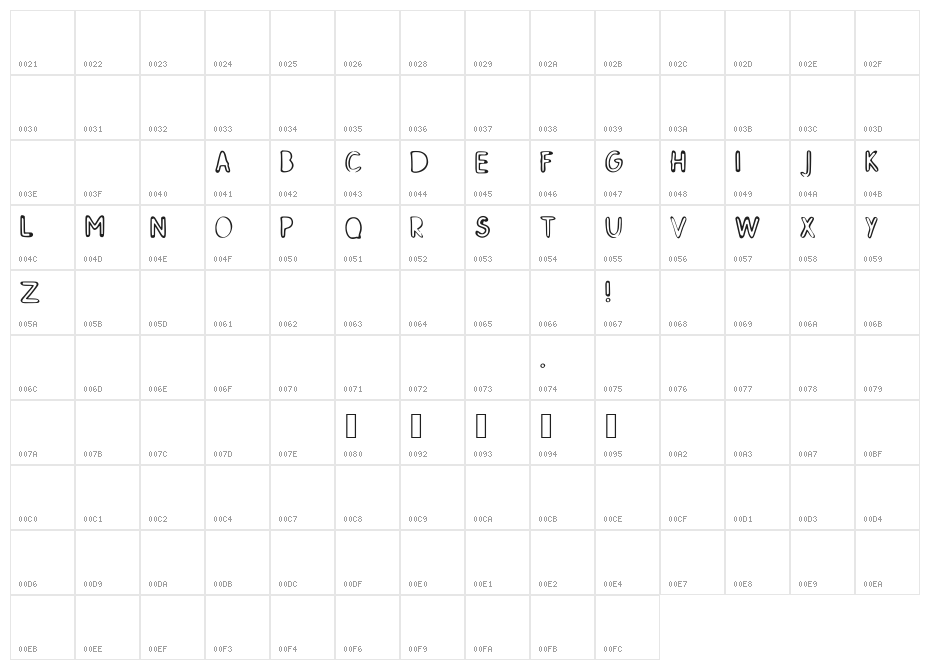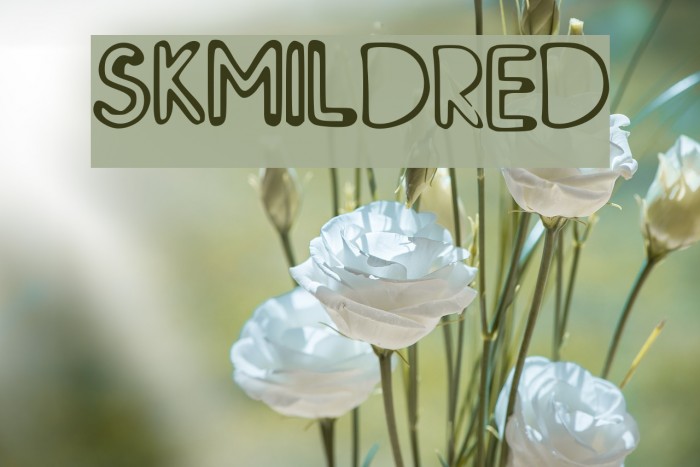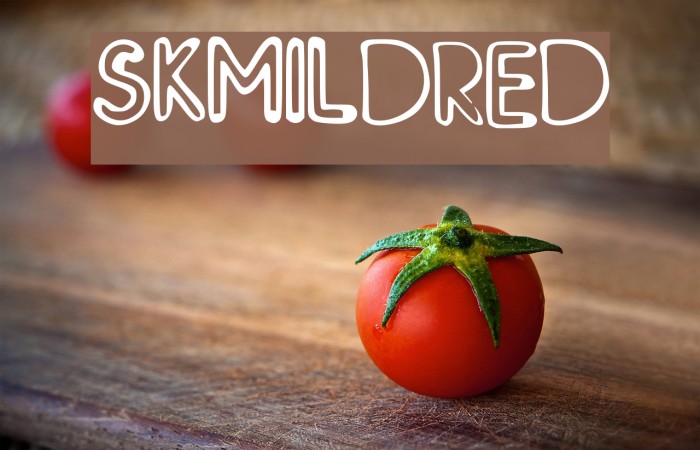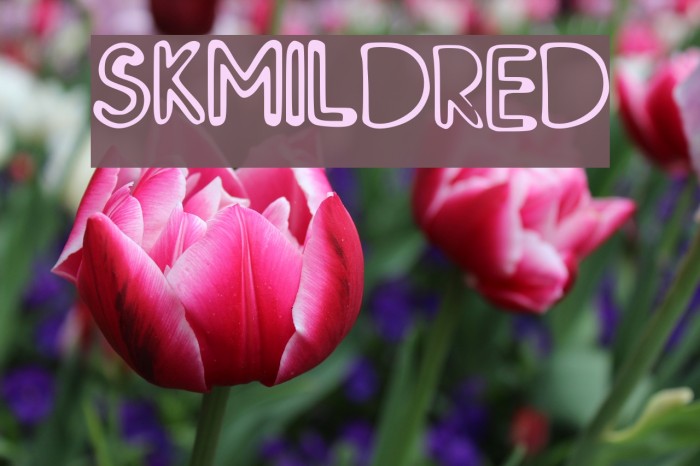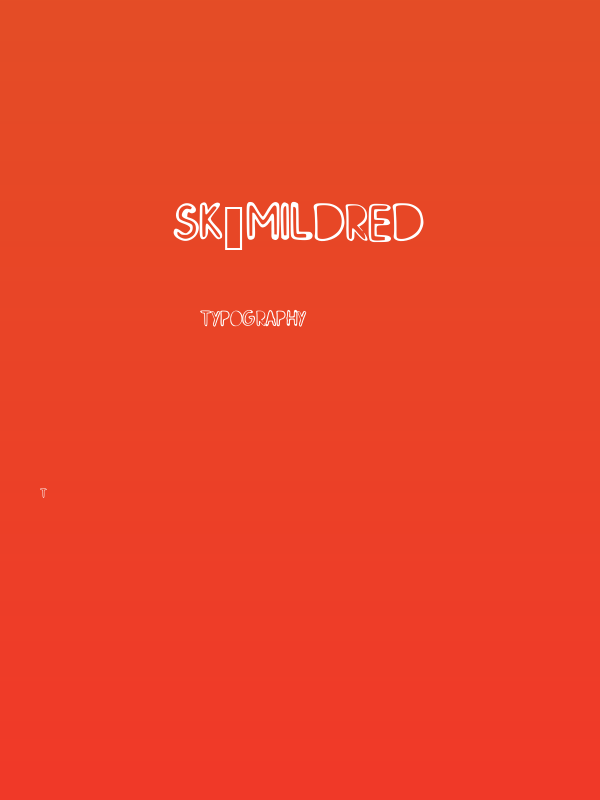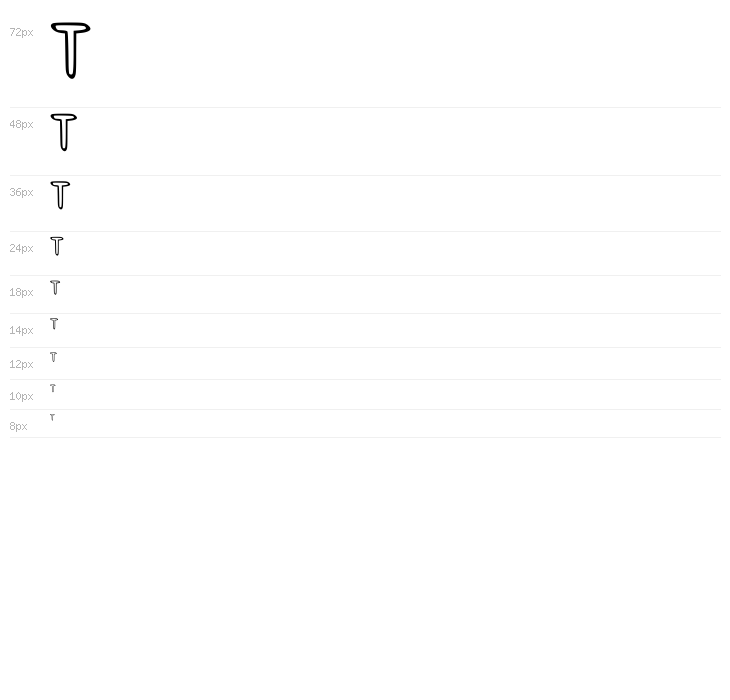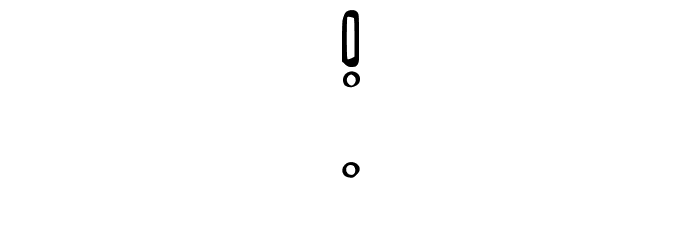
SK_MILDRED Font
SK_MILDRED Description
This font features a playful and bold design with a distinct outline style that gives each character a unique and eye-catching appearance. The uppercase letters are characterized by their rounded edges and varying stroke thickness, creating a dynamic and lively look. The font lacks lowercase letters and numbers, focusing solely on uppercase characters and a few punctuation marks. Its whimsical nature makes it ideal for creative and informal projects, where a touch of fun and personality is desired. The font's outline effect adds depth and dimension, making it stand out in any design.
Overall StylePlayful, Whimsical
Proposed ProjectsIdeal for children's book covers, playful posters, party invitations, and creative branding.